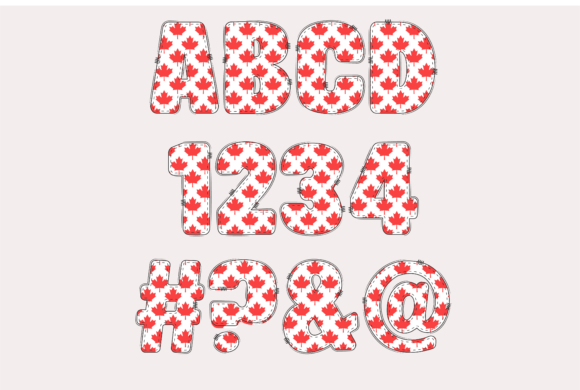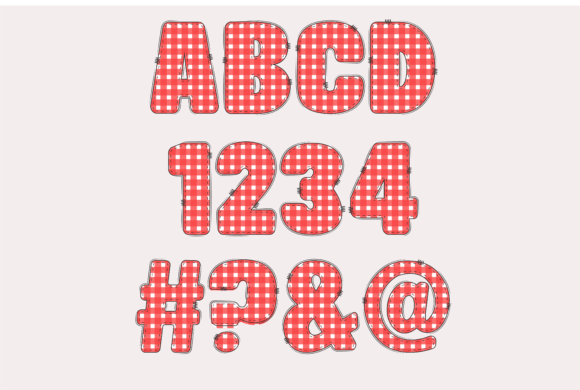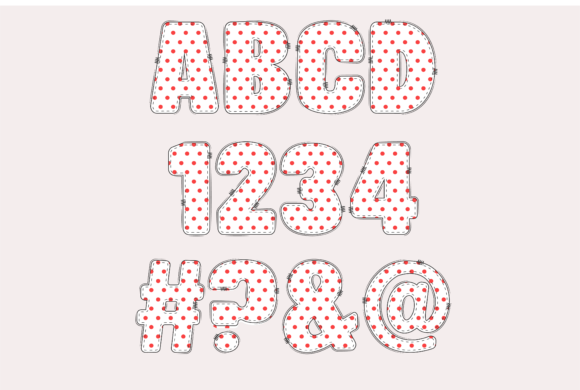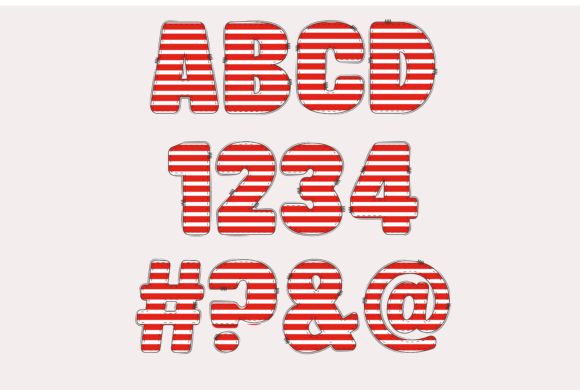
Introducing the Canada Flag Font: A Bold and Cool Decorative Font
Are you looking for a unique and creative way to add a touch of Canadian flair to your designs? Look no further than the Canada Flag Font! This bold and incredibly cool decorative font is perfect for a variety of design ideas, particularly those related to the cool life in this amazing country. In this article, we’ll explore the features and benefits of the Canada Flag Font, and show you how to get the most out of this beautiful font.
What is the Canada Flag Font?
The Canada Flag Font is a decorative font that features a unique and colorful design inspired by the iconic Canadian flag. This font is perfect for designers and crafters who want to add a touch of Canadian pride to their work. Whether you’re creating a logo, a poster, or a craft project, the Canada Flag Font is sure to make a statement.
Key Features of the Canada Flag Font
- Endless Variations: With the Canada Flag Font, you can create endless variations of your design, making it perfect for a wide range of projects.
How to Use the Canada Flag Font
Using the Canada Flag Font is easy! Here are a few tips to get you started:
- Experiment with Different Designs: Don’t be afraid to experiment with different designs and variations. The Canada Flag Font is perfect for creating unique and creative projects.
Here are a few tips and tricks for designers and crafters who want to get the most out of the Canada Flag Font:
- Use it for Canadian-Themed Projects: The Canada Flag Font is perfect for Canadian-themed projects, such as logos, posters, and craft projects.
- Experiment with Different Colors: The Canada Flag Font is a color font, which means you can experiment with different colors and variations.
- Combine it with Other Fonts: Try combining the Canada Flag Font with other fonts to create unique and creative designs.